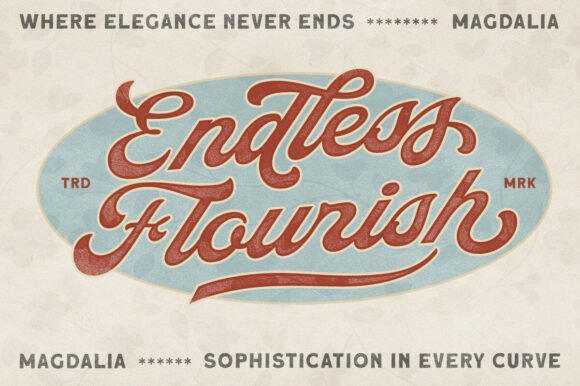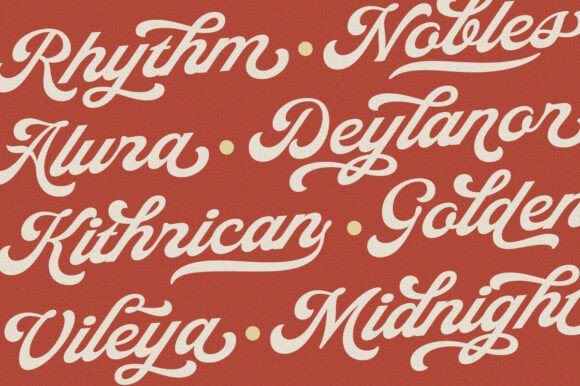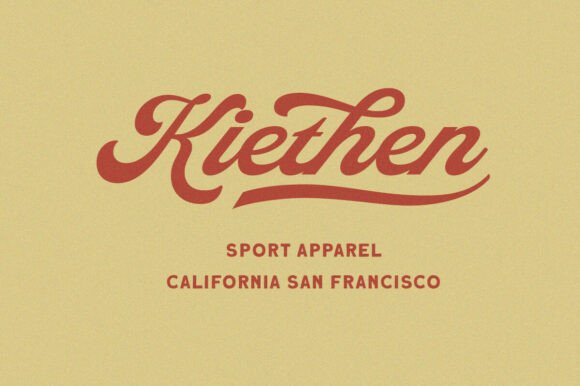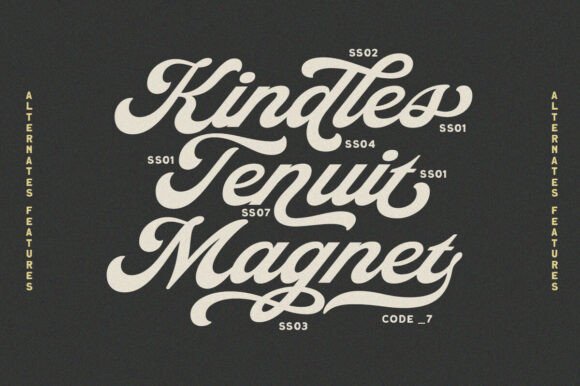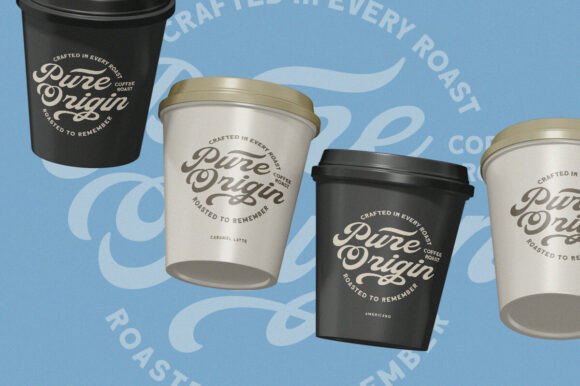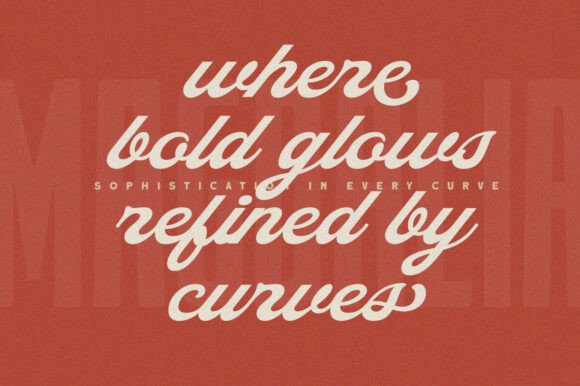
Introduction to Magdalia Font
Remember the excitement of discovering that perfect font for your creative project? The one that elevates your design and makes it truly special? For designers, finding the right font can be the difference between a good design and a great one. And, for those who appreciate the charm of vintage typography, the Magdalia Font is a treasure trove of creative possibilities.
This beautiful script font combines retro flair with a modern, handcrafted touch, making it perfect for logos, packaging, posters, and apparel. With its flowing strokes and stylish swashes, the Magdalia Font adds a unique personality to any design. And, with PUA encoding, you’ll have effortless access to all the glyphs, swashes, and alternate characters you need to customize your creations with ease.
Whether you’re working on a design project that requires a high-quality, free download or simply looking for a design resource to add some vintage charm to your work, the Magdalia Font is an excellent choice. Its transparent background and high-quality design make it perfect for any creative endeavor.
Key Features of Magdalia Font
- High-quality, elegant design suitable for various creative projects
- Unique, hand-drawn style with intricate details, perfect for adding a touch of sophistication to any design
- Designed to be highly legible at various resolutions and sizes, making it suitable for a range of applications
- Includes a comprehensive character set, including uppercase and lowercase letters, numbers, and punctuation marks
Honest Review: Magdalia Font
As a designer, I’m always on the lookout for high-quality design resources to elevate my creative projects. Recently, I stumbled upon the Magdalia Font, and I’m excited to share my honest review with you.
What works well: ✨ The Magdalia Font boasts a beautiful, elegant script that’s perfect for adding a touch of sophistication to any design. The font is highly legible, making it easy to read even at small font sizes. I also appreciate the fact that it comes with a transparent background, giving me the flexibility to use it on any background color or image.
What could improve: ⚠️ While the Magdalia Font is a great addition to any designer’s arsenal, I do wish it came in more font weights. Currently, it’s only available in a single weight, which may limit its use in certain design scenarios.
Overall impression: I’m really impressed with the Magdalia Font, and I think it’s a great free download for designers. It’s perfect for projects that require a high-quality, elegant script font. If you’re looking for a reliable design resource, I’d definitely recommend giving it a try.
- High-quality, elegant script font
How to Use Magdalia Font
The Magdalia Font is a high-quality, free download design resource ideal for creative projects that require a unique and elegant touch. This font features a transparent background, making it versatile for various design applications.
Tips for Getting the Most Out of Magdalia Font
For optimal results, use the Magdalia Font in conjunction with other high-quality design resources. Experiment with different font sizes, colors, and combinations to achieve a unique look.
Common Use Cases for Magdalia Font
The Magdalia Font is ideal for creative projects such as wedding invitations, branding materials, and luxury product packaging. Its elegant and sophisticated design makes it perfect for high-end and professional applications.